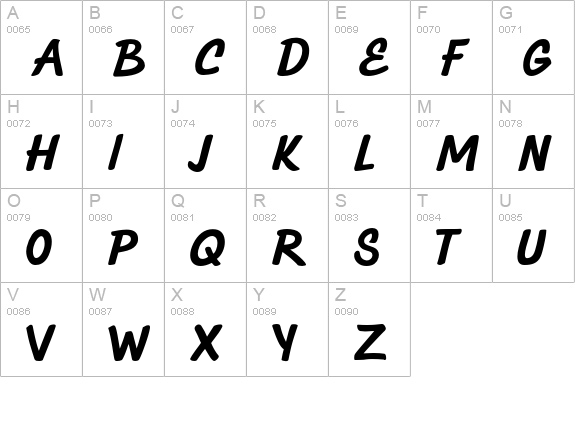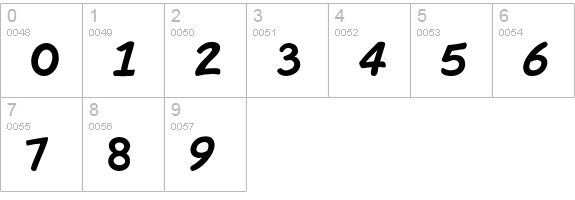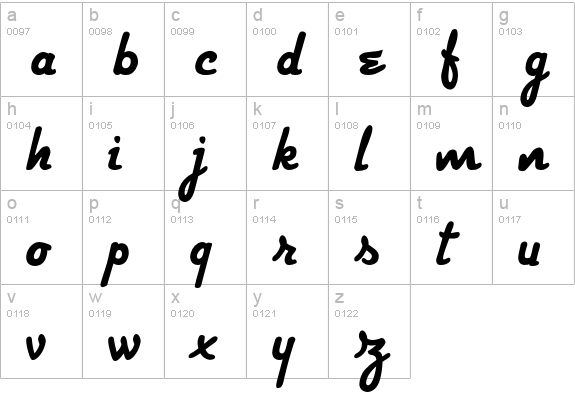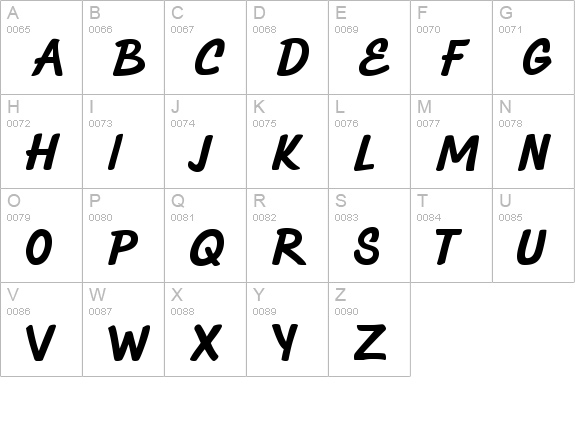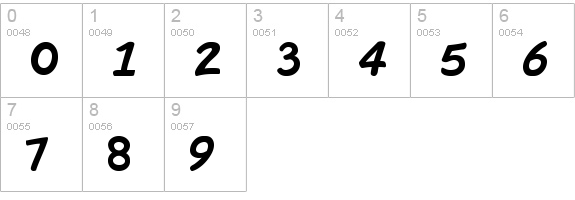
Strato Medium Font Details
Strato Medium is a balanced, medium-weight variant in the Strato typeface family \xE2\x80\x94 well suited to sub-headlines, navigation, and balanced editorial work.
Strato Medium is a versatile and modern font that effortlessly blends elegance with readability. With its clean lines and balanced forms, this typeface is perfect for a wide range of design projects, from branding and packaging to editorial layouts and web design. The Strato Medium font features a medium weight that strikes the ideal balance between boldness and subtlety, making it suitable for both headlines and body text. Its smooth curves and precise details give it a sophisticated and professional appearance, while its legibility ensures optimal readability across various sizes and mediums. One of the most appealing aspects of Strato Medium is that it is freely available to download at FontsMarket.com. This means that designers, creatives, and enthusiasts alike can easily access and utilize this font for their projects, without any cost or restrictions. Whether you're a professional designer or a hobbyist, Strato Medium offers you the opportunity to elevate your designs with its modern and refined aesthetic. So, if you're looking for a versatile and stylish font that adds a touch of sophistication to your designs, Strato Medium is an excellent choice. Download it for free at FontsMarket.com and unlock a world of possibilities for your next creative endeavor.